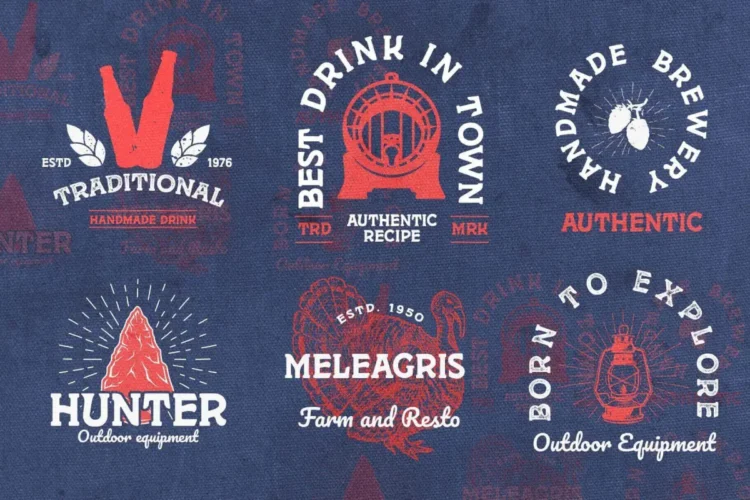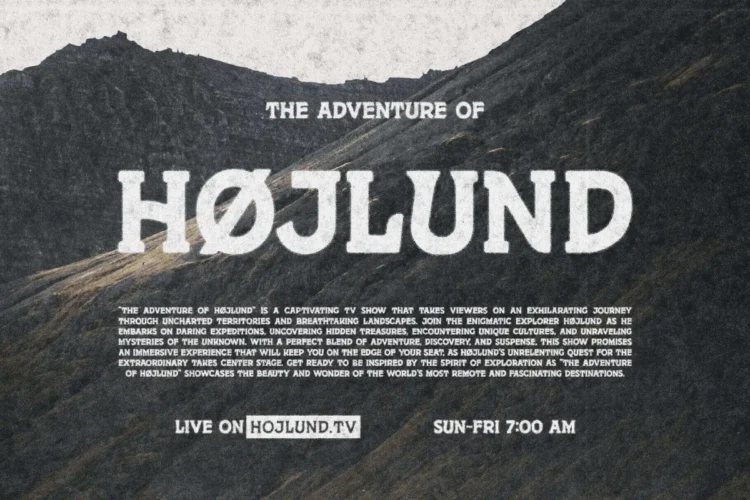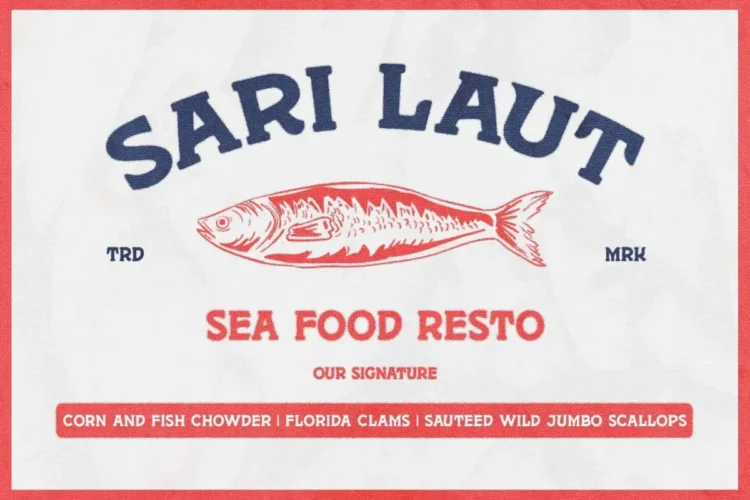
Homerus Fonts – Vintage Retro Serif Typeface for Logo, Branding & Adventure Design
Homerus Fonts is a vintage font collection with a bold, handcrafted character, perfect for designers who crave a retro font with authentic charm. Inspired by classic sign painting and adventure aesthetics, this serif font combines modern versatility with nostalgic texture detailing.
It includes 8 distinctive styles:
- Line Regular
- Regular
- Soft Texture Regular
- Texture Regular
- Line Italic
- Italic
- Soft Texture Italic
- Texture Italic.
Crafted for professionals, Homerus Fonts works beautifully as a branding font, logo font, poster font, and packaging font. Its textured styles add a tactile, handcrafted feel ideal for adventure fonts, label fonts, and headline fonts. The balanced serif structure ensures readability and impact, making it suitable for modern design, editorial titles, and vintage-themed apparel.
Homerus Fonts Included :
- Includes 8 distinctive styles: Line Regular, Soft Texture Regular, Line Italic, Soft Texture Italic, and Texture Italic
Homerus Fonts is versatile and works beautifully for :
- Logo & Branding Projects
- Product Packaging & Labels
- Adventure & Outdoor Designs
- Posters, Headlines, and Signage
- Clothing, Merch, and Badges
- Retro-Themed Websites & Editorials
Bring timeless character to your designs — from rugged adventure branding to elegant retro typography — with Homerus Fonts, the perfect fusion of vintage and modern aesthetics.